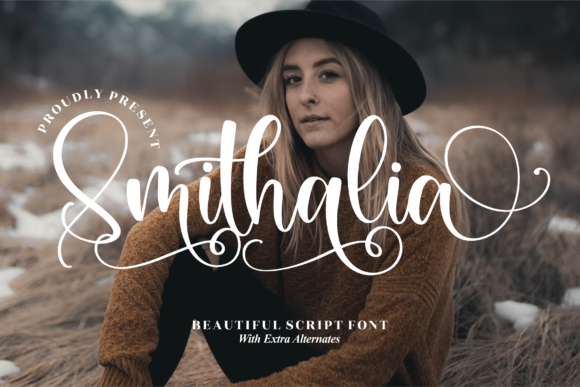
Journey into the realm of elegance and charm with Smithalia Font, where beauty and professionalism intertwine effortlessly, enchanting your design projects with an air of luxurious sophistication. A creation of the renowned Letterfabric, this calligraphy typeface dances along the baseline with each character, portraying an alluring tale of love and romance.
Designed with the contemporary professional in mind, Smithalia Font is not just a mere font; it's an experience that elevates your digital presence to new heights. Whether you're crafting captivating website designs, designing heart-fluttering logos, or creating enchanting social media graphics, Smithalia Font is your perfect companion. Its delicate strokes and flowing curves add a touch of elegance to every letter, making your designs stand out from the mundane.
Unleash your creativity and explore the endless possibilities that Smithalia Font has to offer. Its PUA encoding opens up a world of stunning glyphs and ligatures, allowing you to effortlessly incorporate intricate flourishes, graceful swashes, and captivating alternates into your designs. These elements add a touch of whimsy and charm, enhancing the visual appeal of your projects and leaving a lasting impression on your audience.
Smithalia Font is not just a font; it's an investment in your brand's identity. Its timeless beauty transcends trends, ensuring that your designs remain relevant and captivating for years to come. Embrace the allure of Smithalia Font and take your designs to new heights of sophistication, elegance, and professionalism.
With Smithalia Font, you'll embark on a journey of creative exploration, discovering new dimensions of beauty and captivating your audience with every design you create. Let your imagination soar and transform your projects into works of art, leaving a lasting legacy of elegance and charm.